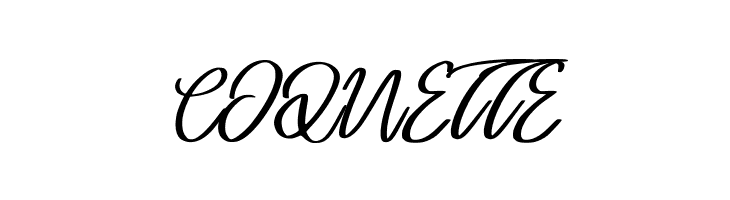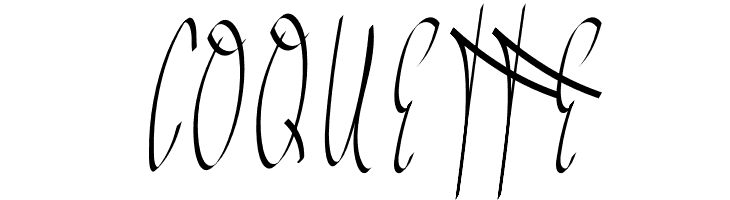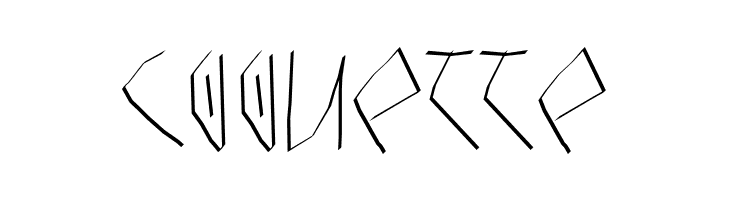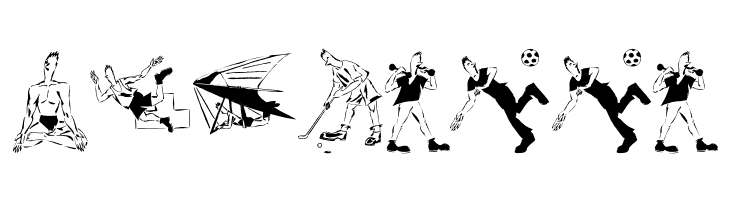
A bold, italic, handwritten font with a playful and energetic style.
A lively and elegant script font with flowing, interconnected letterforms.
An elegant, cursive font with bold, sweeping uppercase letters and smooth, decorative lowercase characters.
A sophisticated and elegant script font with ornate uppercase letters and smooth, readable lowercase letters.
An angular, hand-drawn font with sharp, jagged lines and a modern, edgy style.
A bold, serif font with strong vertical emphasis and sharp serifs.
A fluid and expressive handwritten font with elongated strokes.
A playful, sports-themed illustrative font with each character represented by an athlete in action.